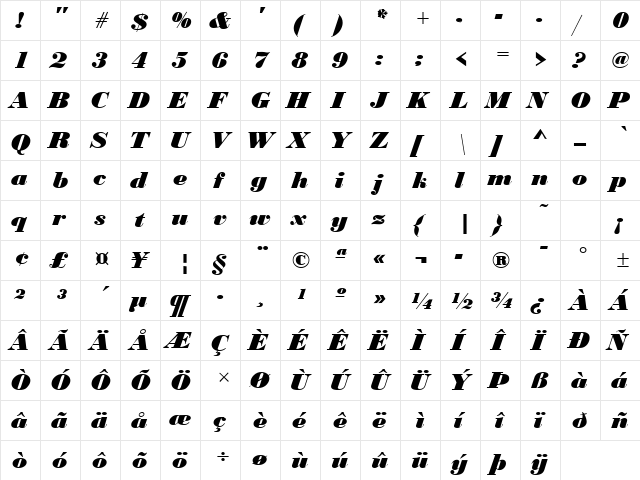
BodoniH Bold Italic Font Preview
Design Context for BodoniH Typeface
BodoniH takes a measured approach to typography — its balanced proportions and neutral character make it a reliable workhorse for both digital and print work. The dynamic lean of this cut emphasises speed and emphasis in any layout. The heavy weight commands attention and anchors typographic hierarchies.
Pro Tip: Try BodoniH for annotation and caption copy alongside an upright companion — the contrast in angle creates a dynamic but ordered typographic system.